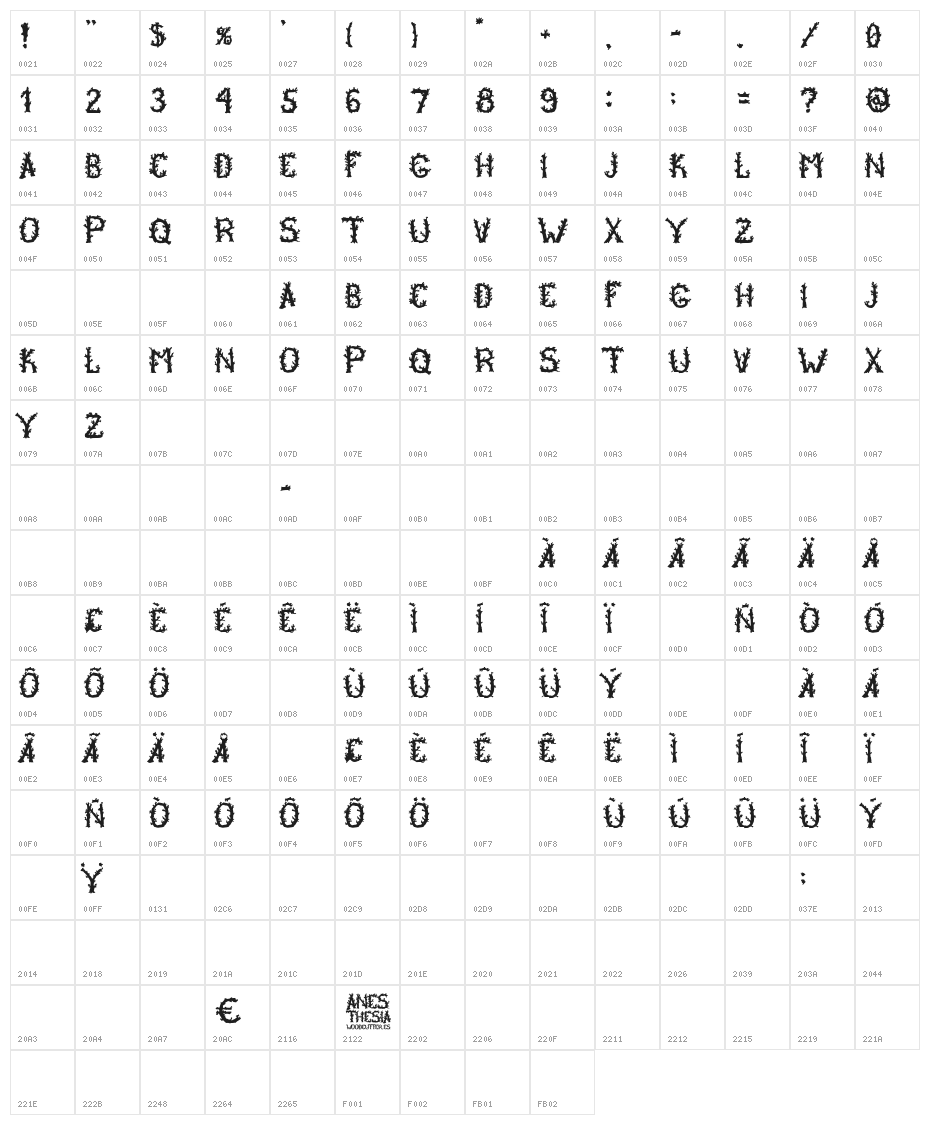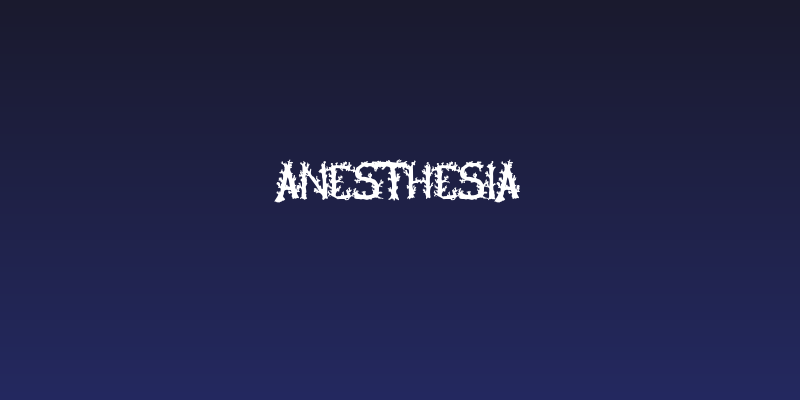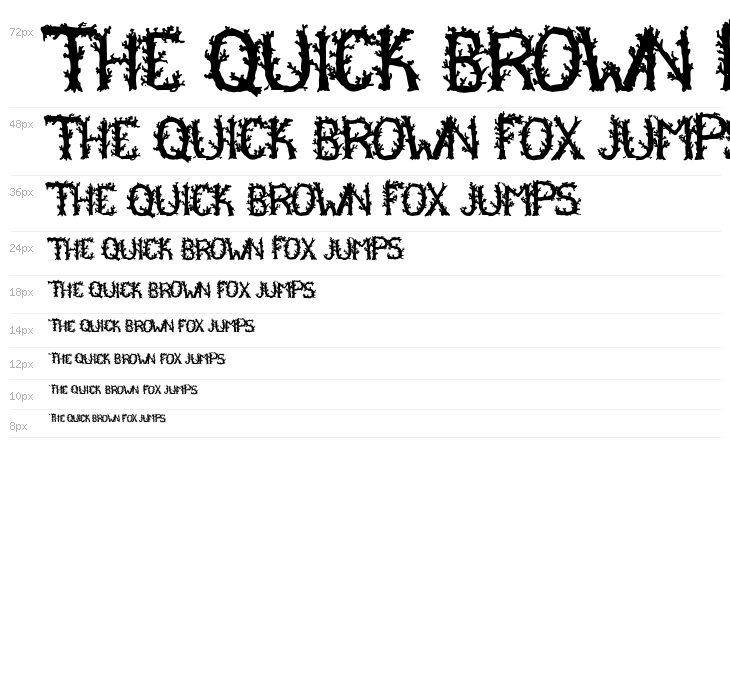
Anesthesia Font
Anesthesia Description
This font features a highly decorative and intricate design, characterized by thorny, jagged edges that give each character a unique, organic appearance. The letters are bold and impactful, with a chaotic yet structured form that evokes a sense of wildness and unpredictability. The font's style is reminiscent of natural elements, such as vines or thorns, intertwining to create a visually striking effect. This makes it particularly suitable for projects that require a dramatic and attention-grabbing typeface.
| Proposed Projects | Ideal for horror-themed posters, Halloween invitations, edgy album covers, or any project needing a dramatic and unique typeface. |